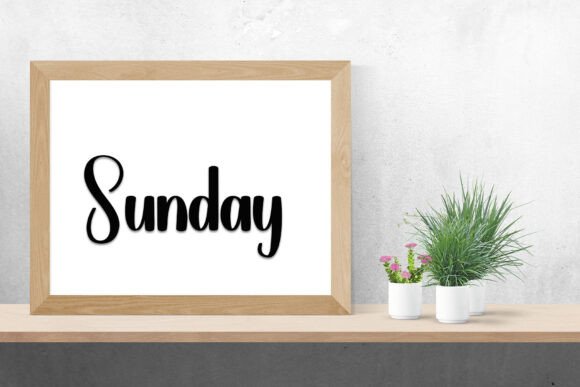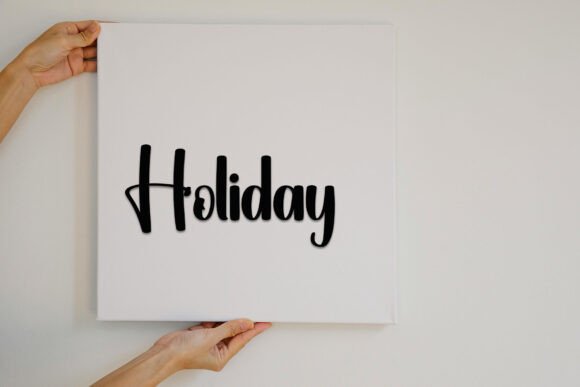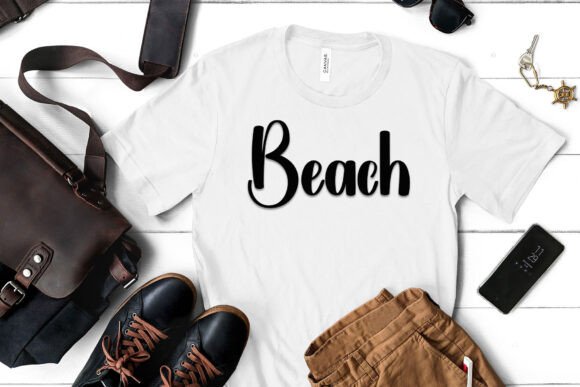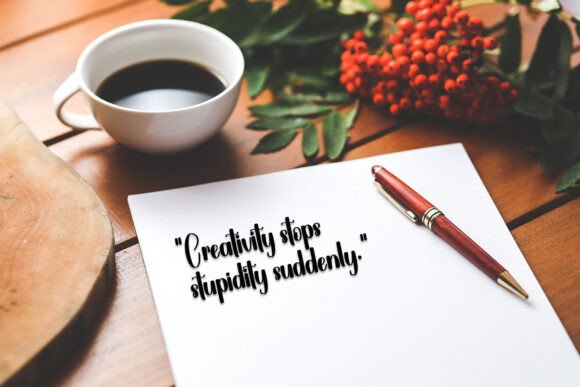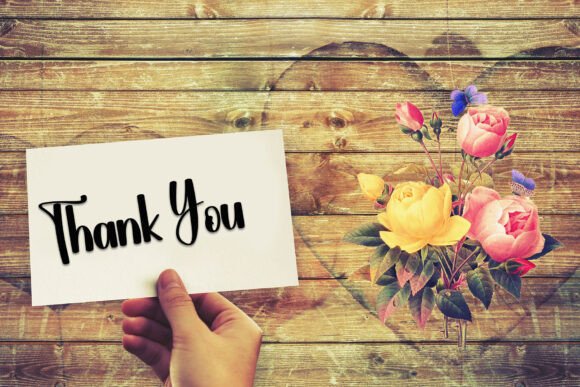
Introducing Capybara Font: The Sweet and Cursive Handwritten Font for Your Design Needs
Are you looking for a font that can add a touch of elegance and whimsy to your designs? Look no further than Capybara Font! This beautiful, cursive handwritten font is perfect for designers and crafters who want to create stunning visuals that exude joy and romance. In this article, we’ll dive into the features and benefits of Capybara Font, and explore how you can use it to elevate your design projects.
What is Capybara Font?
Capybara Font is a sweet and cursive handwritten font that is designed to add a touch of warmth and personality to your designs. Its gentle curves and flowing lines make it perfect for creating beautiful, eye-catching visuals that capture the essence of your brand or message. Whether you’re working on a logo, branding materials, wedding designs, greeting cards, or marketing promotions, Capybara Font is the perfect choice.
Key Features of Capybara Font
So, what makes Capybara Font so special? Here are some of its key features:
- Sweet and Cursive: Capybara Font features a beautiful, cursive script that is both elegant and playful.
- Handwritten: This font is carefully crafted to mimic the look and feel of handwritten text, giving it a personal and authentic touch.
- Versatile: Capybara Font can be used on a wide range of design projects, from logos and branding materials to wedding designs and marketing promotions.
- Elegant yet Casual: This font strikes the perfect balance between elegance and casualness, making it perfect for designers who want to create stunning visuals that are both sophisticated and approachable.
Use Cases for Capybara Font
So, how can you use Capybara Font in your design projects? Here are some ideas to get you started:
- Branding and Logo Design: Use Capybara Font to create a beautiful, memorable logo that captures the essence of your brand.
- Wedding Designs: Add a touch of romance and elegance to your wedding designs, including invitations, programs, and decorations.
- Greeting Cards: Create stunning greeting cards for special occasions, such as birthdays, anniversaries, and holidays.
- Fashion and Lookbook: Use Capybara Font to create beautiful, eye-catching fashion designs and lookbooks that showcase your brand’s style and personality.
- Marketing Promotion: Add a touch of elegance and sophistication to your marketing promotions, including brochures, flyers, and social media graphics.
Why Choose Capybara Font?
So, why should you choose Capybara Font for your design projects? Here are just a few reasons:
- Unique and Eye-Catching: Capybara Font is a unique and eye-catching font that will help your designs stand out from the crowd.
- Elegant and Sophisticated: This font adds a touch of elegance and sophistication to your designs, making it perfect for high-end brands and luxury products.
- Easy to Read: Capybara Font is easy to read, even in small sizes, making it perfect for body text and captions.
- Customizable: You can customize Capybara Font to fit your brand’s style and personality, making it a versatile choice for designers.